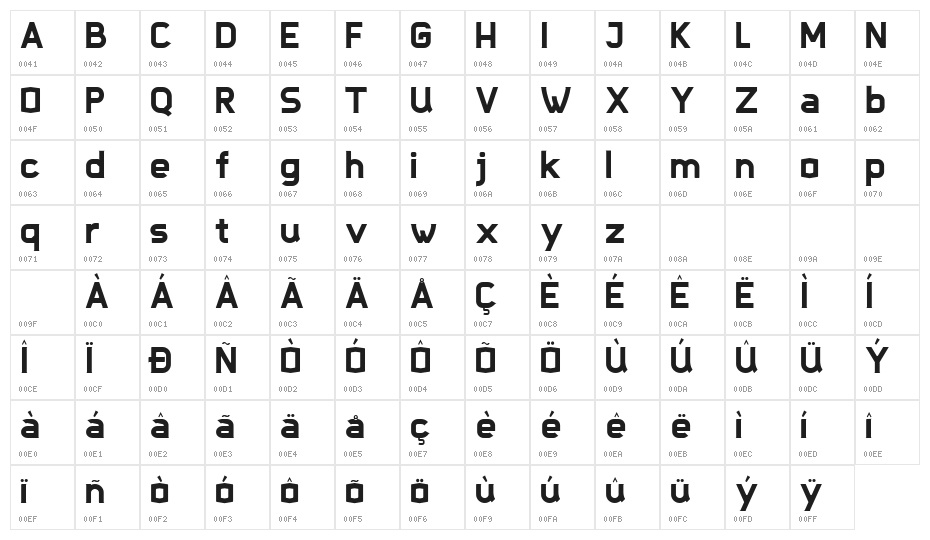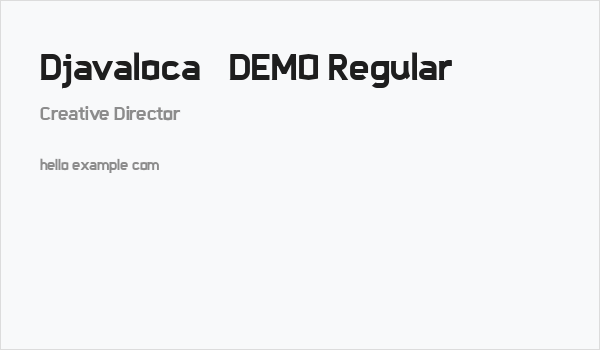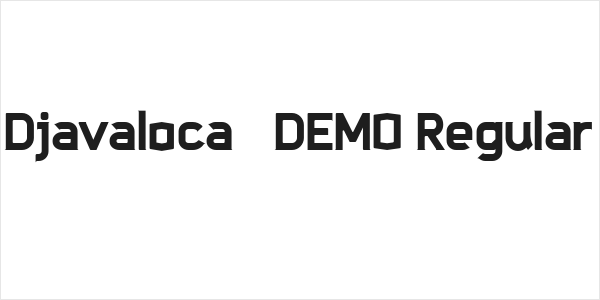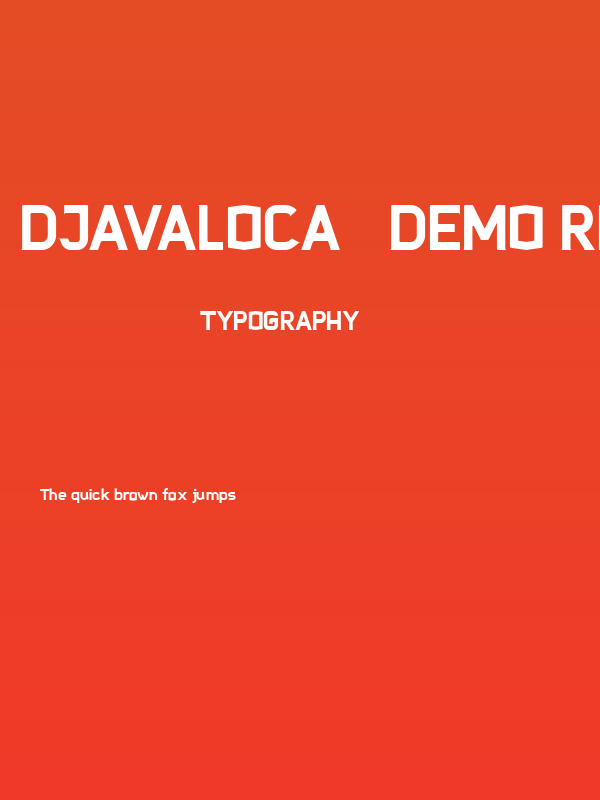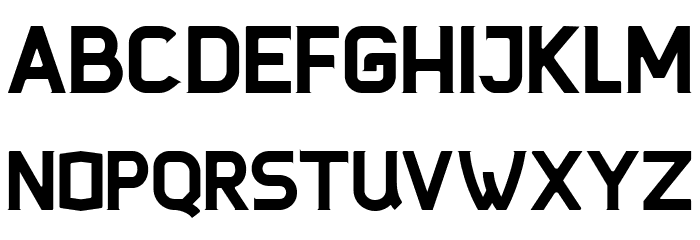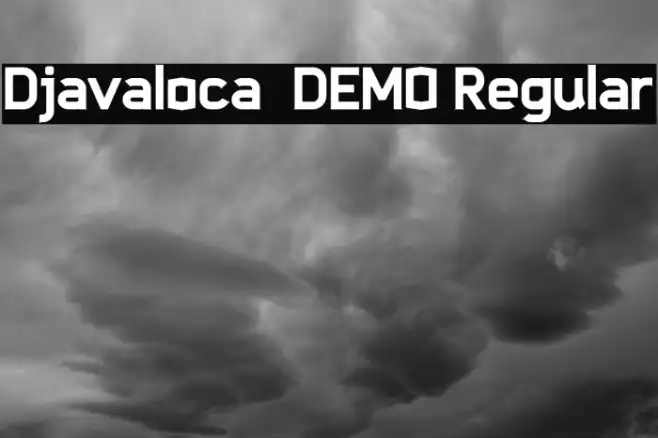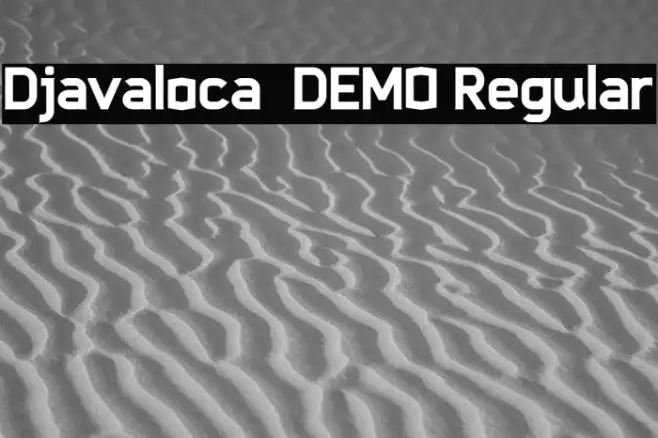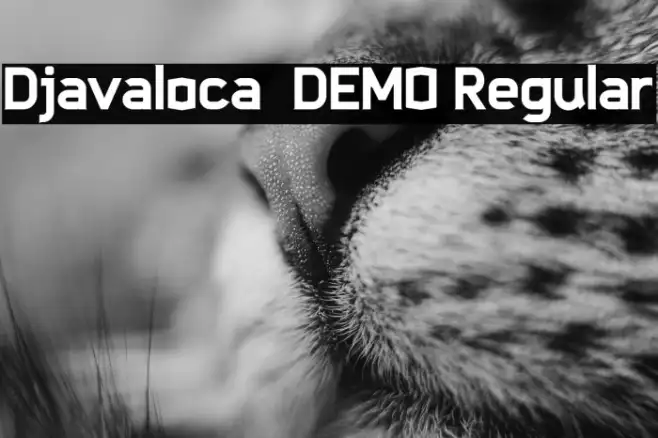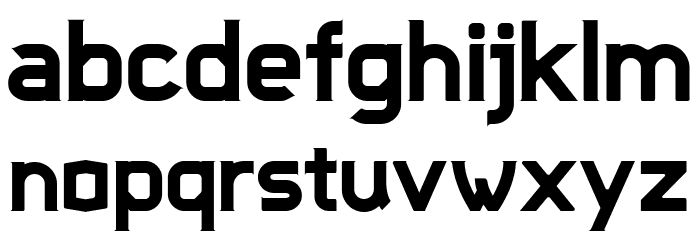
Djavaloca - DEMO Regular Font
Djavaloca - DEMO Regular Description
This font features a bold and geometric design with a modern twist. The uppercase letters are characterized by sharp angles and clean lines, giving them a strong and assertive presence. The lowercase letters maintain a consistent style, with rounded edges that add a touch of softness to the overall look. The numerals are clear and easy to read, matching the boldness of the alphabet. Special characters are designed with the same attention to detail, ensuring a cohesive appearance across all glyphs. This font is suitable for projects that require a contemporary and impactful typeface.
| Proposed Projects | Ideal for branding, headlines, posters, and digital media that require a strong visual impact. |